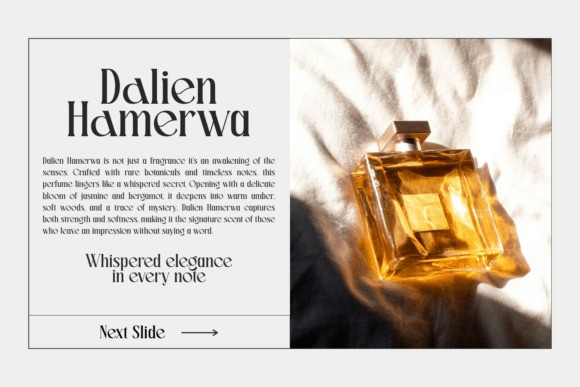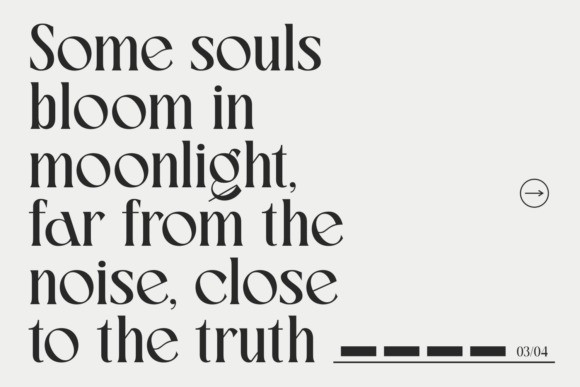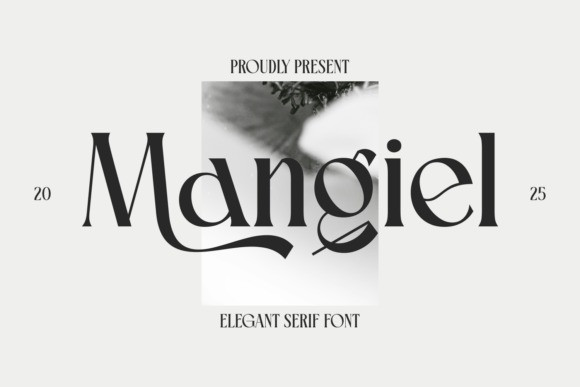
Mangiel Font
Mangiel Font, a new elegant serif font from the year 2025. An artistic, black and white photograph is layered behind the font name, adding a chic, high-fashion quality to the presentation. The font itself showcases unique and flowing ligatures.